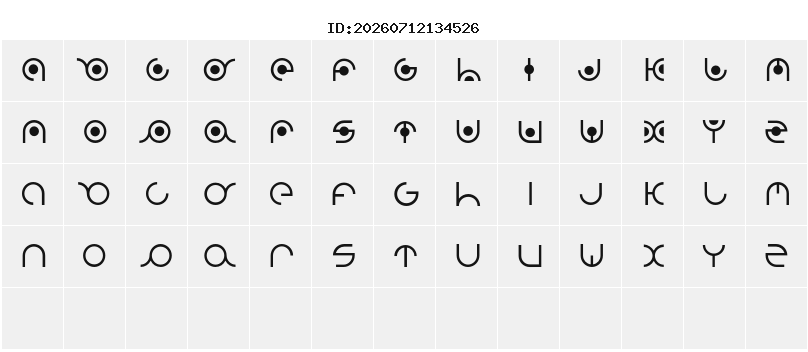
radion Preview
• Font Name: radion
• Font Style: regular
• Full Font Name: radion
• PostScript Name: radion
• Designer: marc beekhuis
About radion.otf
radion.otf is a modern, elegant sans-serif font designed for ultimate readability and visual harmony. Perfect for branding, headlines, web design, and print materials.